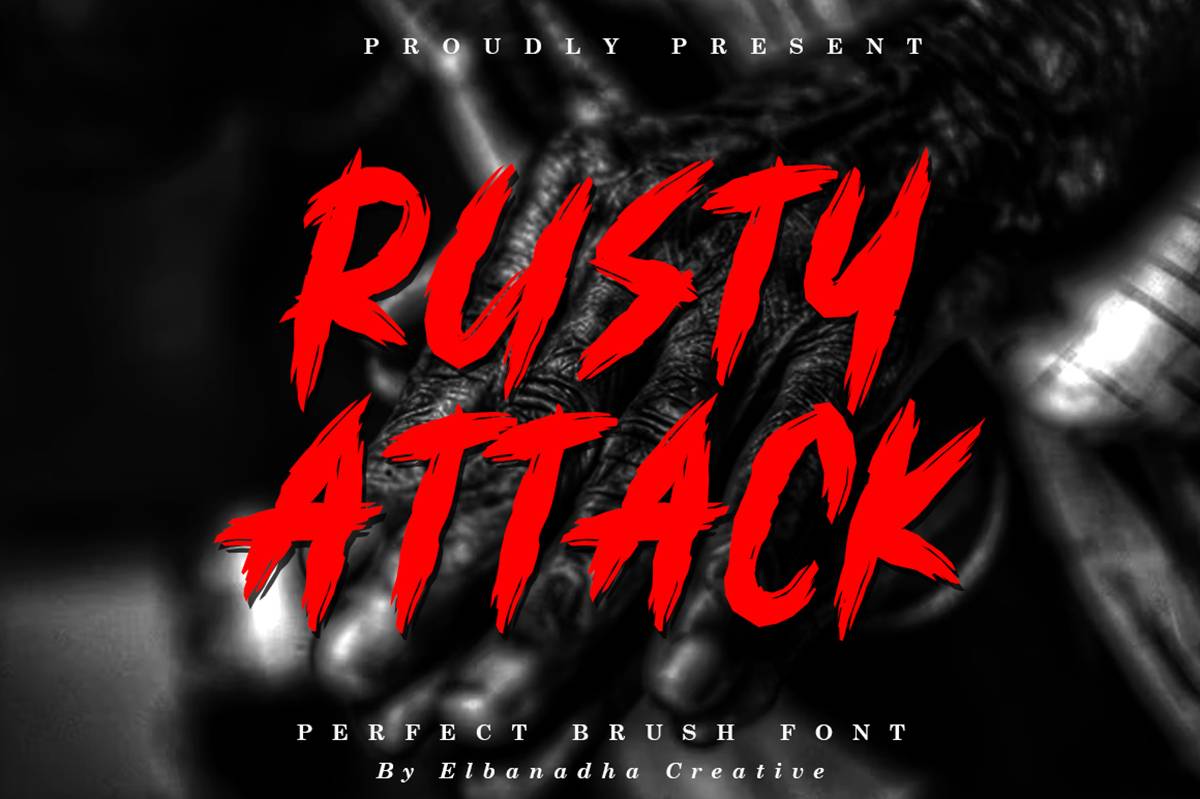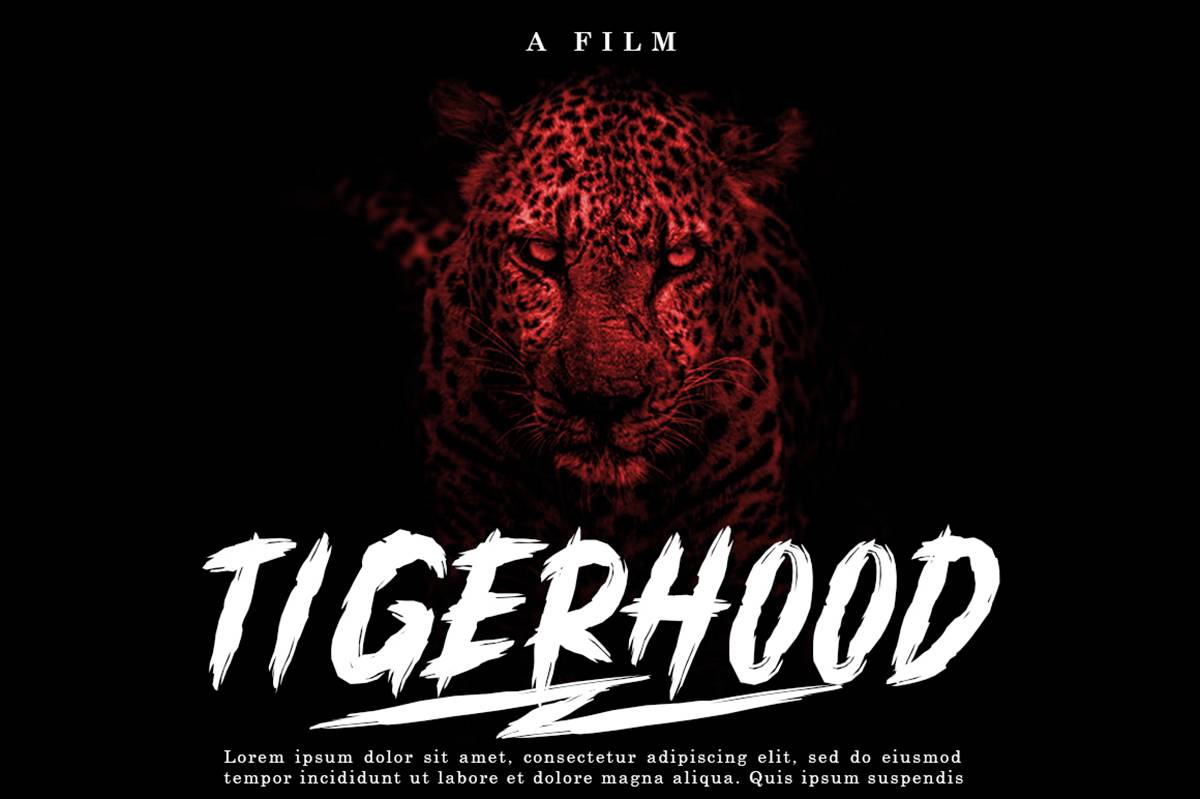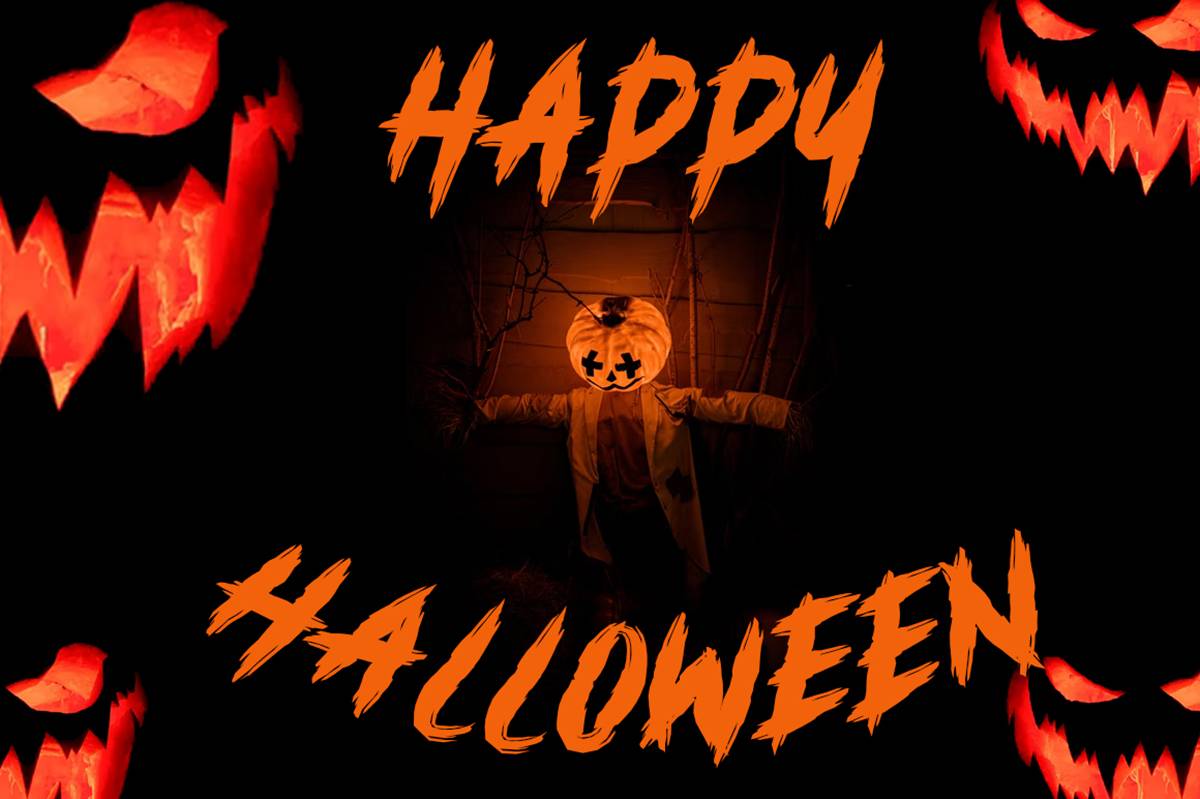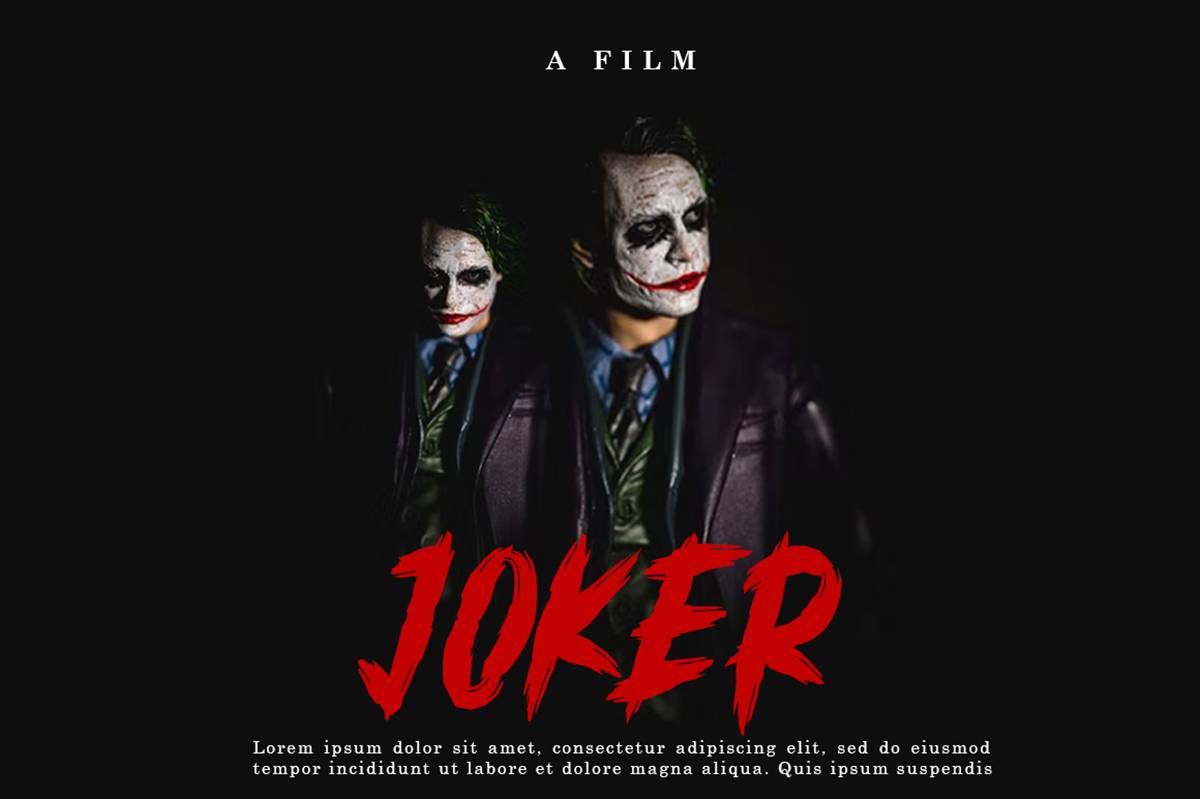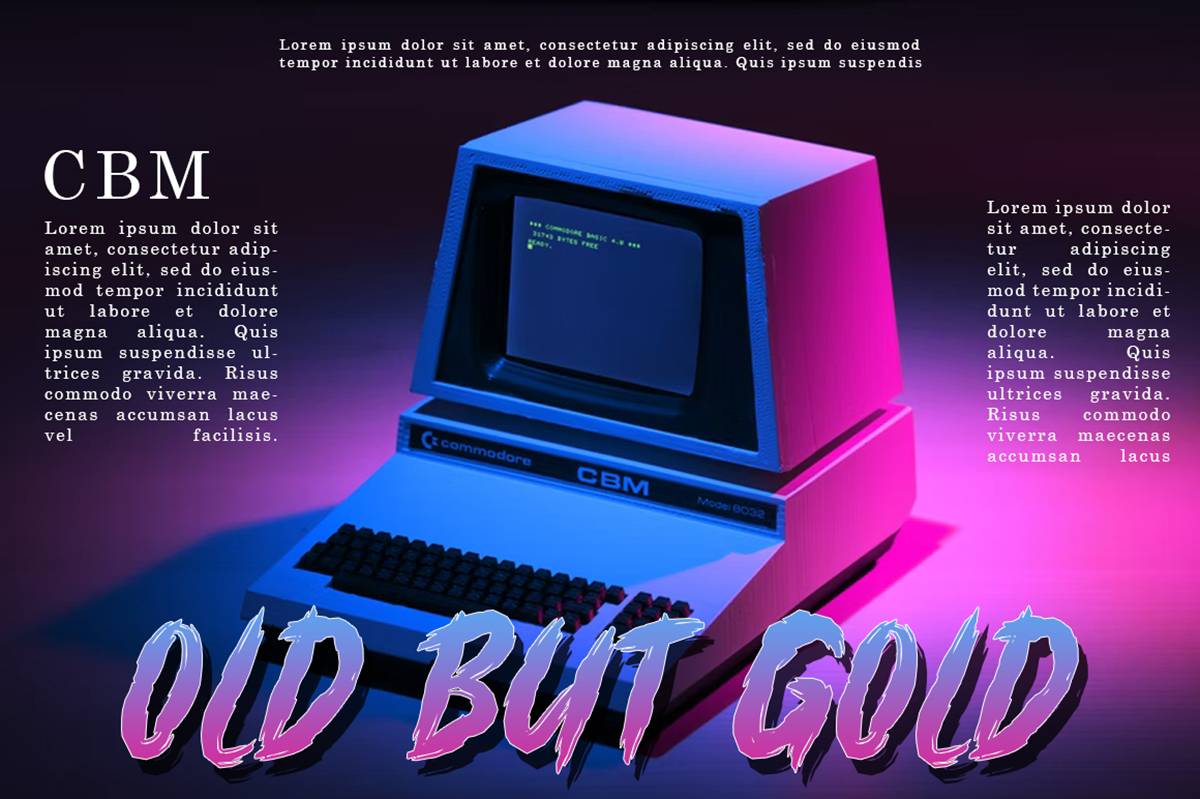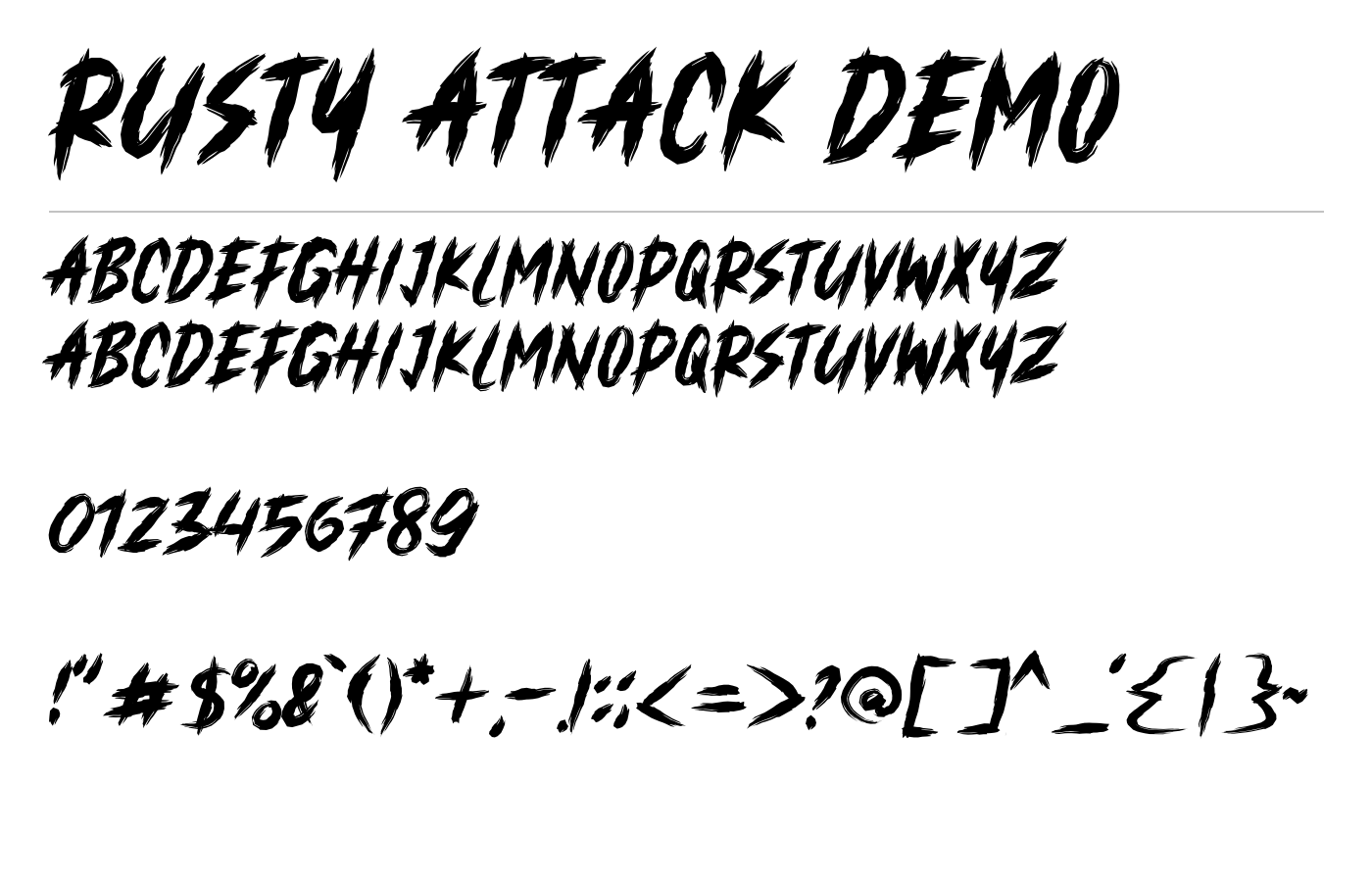
Rusty Attack is a bold, brush-style display font with jagged, textured strokes that give it a rough, energetic, and hand-painted feel. Its dynamic, slightly condensed letterforms and irregular edges make it perfect for creating edgy, impactful designs, ideal for posters, logos, and branding that seek to convey intensity and attitude. This font works best in headlines or short phrases where its dramatic style can stand out and command attention.
Rusty Attack Font
About Rusty Attack Font